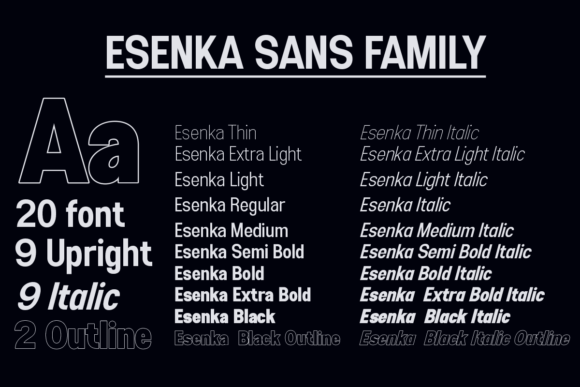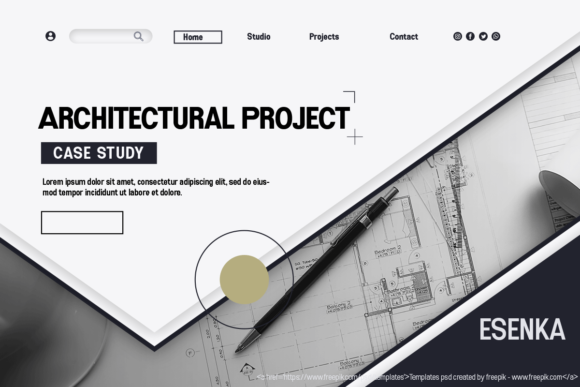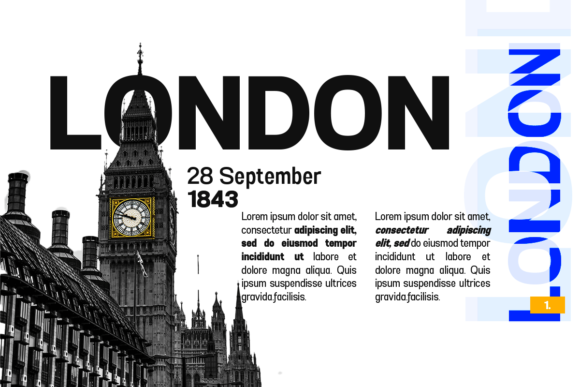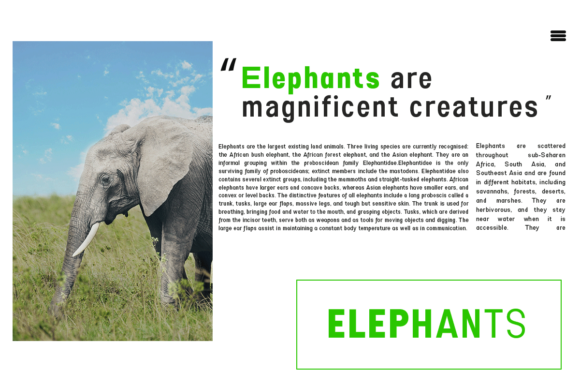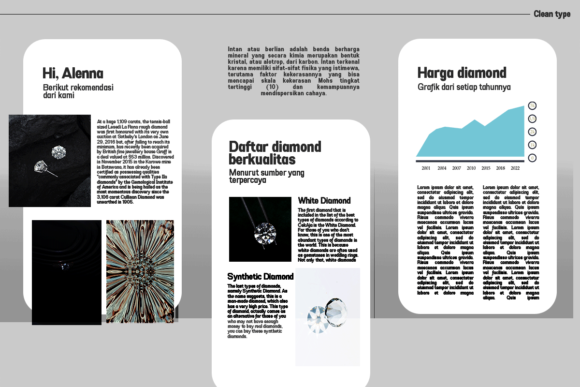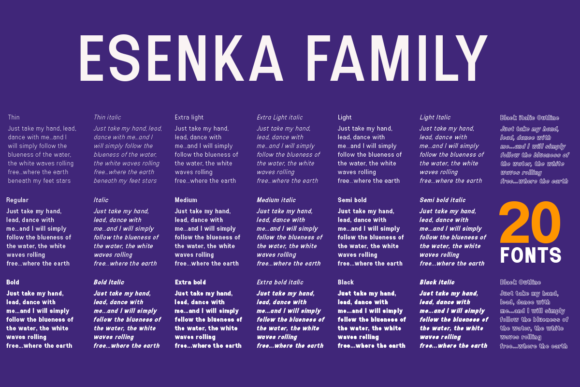
Esenka Font: Elevate Your Designs with a Unique Sans Serif Beauty
In the world of typography, a font can make or break a design. It’s the foundation upon which creativity is built, and the right choice can elevate a project from ordinary to extraordinary. If you’re a designer, crafter, or simply someone who appreciates the art of typography, you’re in luck. Esenka Font is a stunning sans serif font that has the potential to bring your creative ideas to new heights.
A Masterful Design
Esenka Font is a beautifully crafted sans serif font that boasts a unique and captivating aesthetic. Its masterful design ensures that it stands out from the crowd, making it the perfect addition to any creative project. Whether you’re working on a logo, branding materials, or digital content, Esenka Font is sure to make a lasting impression.
One of the standout features of Esenka Font is its PUA (Private Use Area) encoding. This means that you can access all of the glyphs and swashes with ease, giving you unparalleled creative control. With PUA encoding, you can effortlessly navigate the font’s extensive character set, ensuring that your design process is streamlined and efficient.
Esenka Font is incredibly versatile, making it suitable for a wide range of creative projects. From logos and branding materials to digital content and craft projects, this font can be used in various contexts. Its unique and beautiful design ensures that your work will stand out, capturing the attention of your audience and leaving a lasting impression.
Why Choose Esenka Font?
• Unique and Beautiful Design: Esenka Font boasts a stunning sans serif design that’s sure to elevate your creative projects.
• PUA Encoded: Enjoy easy access to all glyphs and swashes, giving you maximum creative control.
• Highly Versatile: Suitable for a wide range of creative projects, from logos and branding materials to digital content and craft projects.
• Easy to Use: Esenka Font is designed to be user-friendly, ensuring a seamless design process.
Tips for Using Esenka Font
To get the most out of Esenka Font, here are a few tips to keep in mind:
• Experiment with Different Sizes: Esenka Font looks great in various sizes, so don’t be afraid to experiment and find the perfect fit for your project.
• Play with Glyphs and Swashes: With PUA encoding, you can easily access all of the glyphs and swashes, adding an extra layer of creativity to your design.
• Pair it with Other Fonts: Esenka Font works beautifully with other fonts, so feel free to experiment with different combinations to create a unique look.
Esenka Font is a game-changer for designers and crafters looking to elevate their creative projects. Its unique and beautiful sans serif design, combined with PUA encoding, makes it an incredibly versatile and user-friendly font. Whether you’re working on a logo, branding materials, or digital content, Esenka Font is sure to bring your creative ideas to new heights. So why wait? Add Esenka Font to your design arsenal today and discover a world of endless creative possibilities!